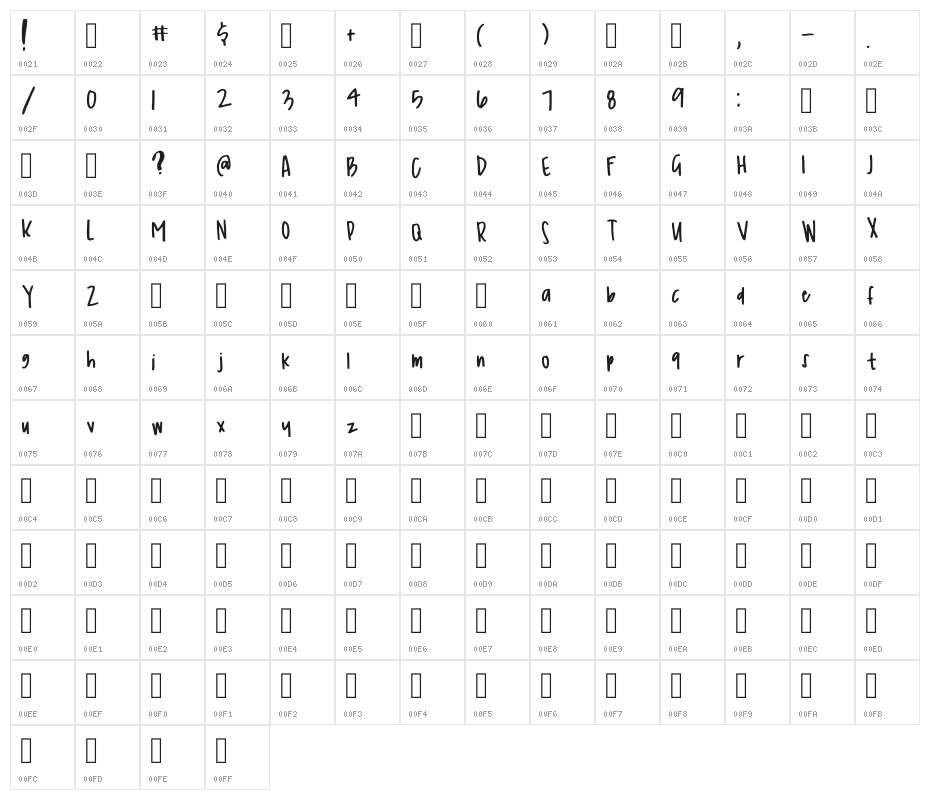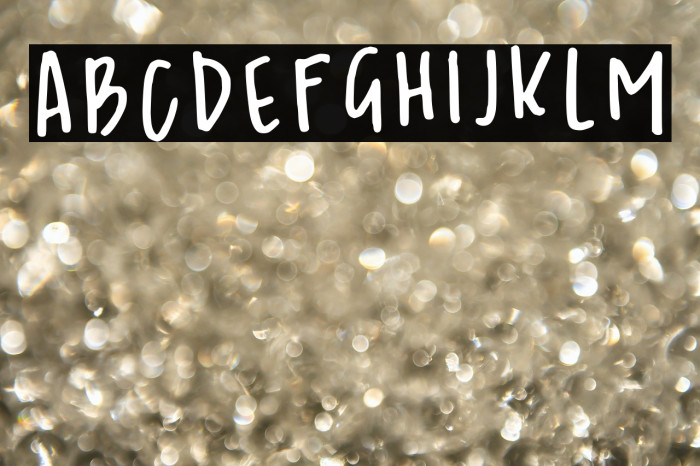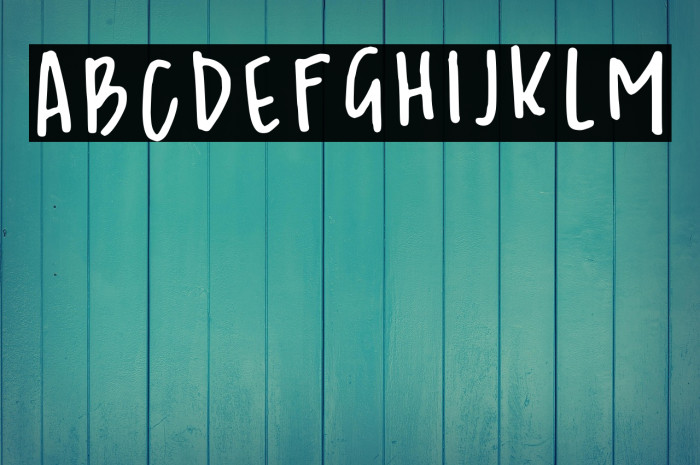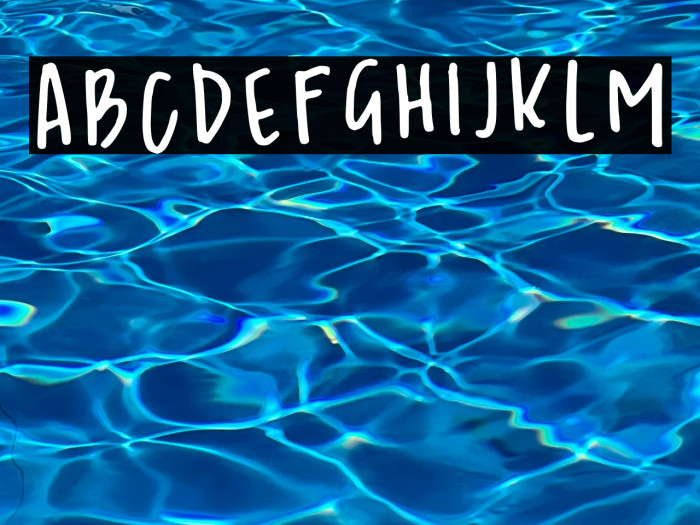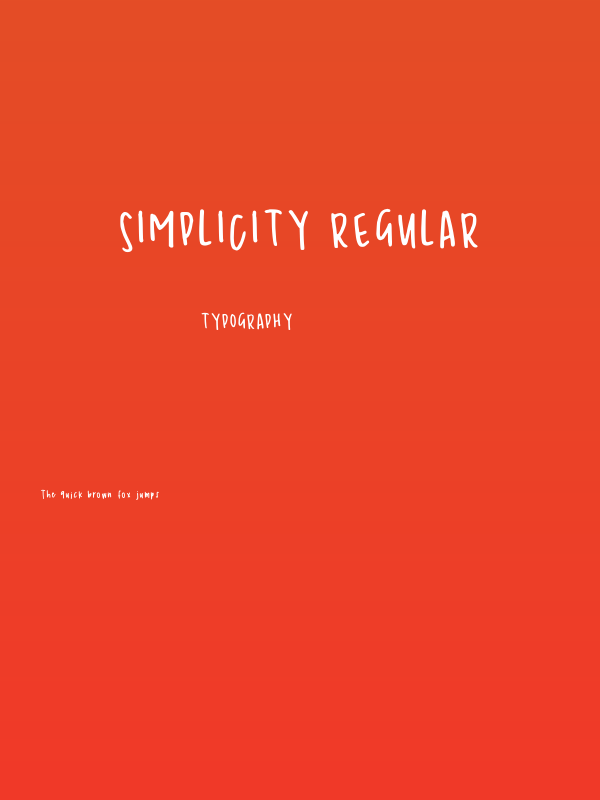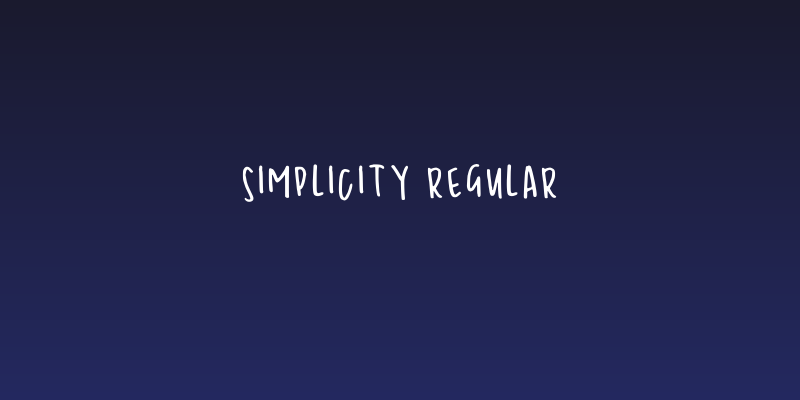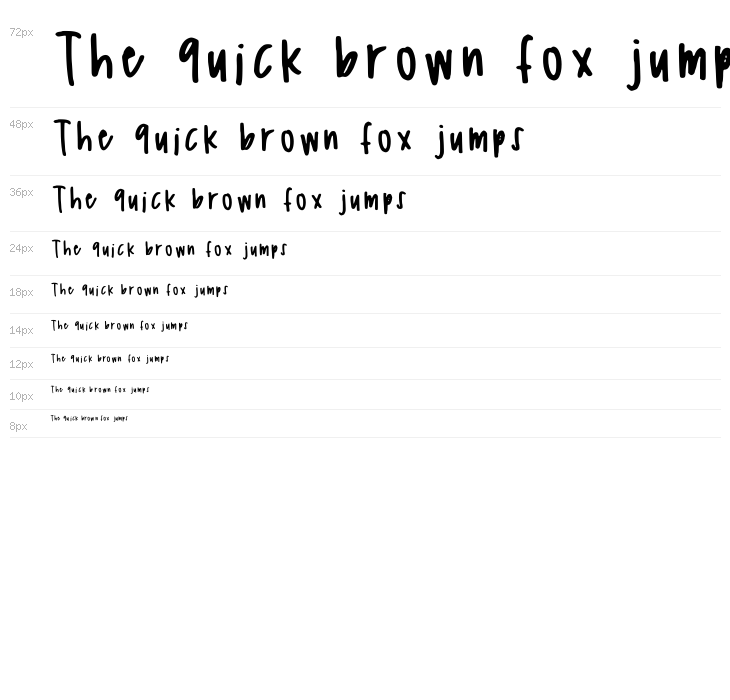
Simplicity Regular Font
Simplicity Regular Description
This font features a playful and informal handwritten style, characterized by its irregular strokes and casual appearance. The letters have a slightly uneven baseline, adding to the whimsical and approachable feel. The uppercase and lowercase letters maintain a consistent style, with rounded edges and a friendly demeanor. The numerals and special characters follow the same informal aesthetic, making the font suitable for projects that require a personal touch. Its overall appearance is both charming and versatile, making it a great choice for creative designs.